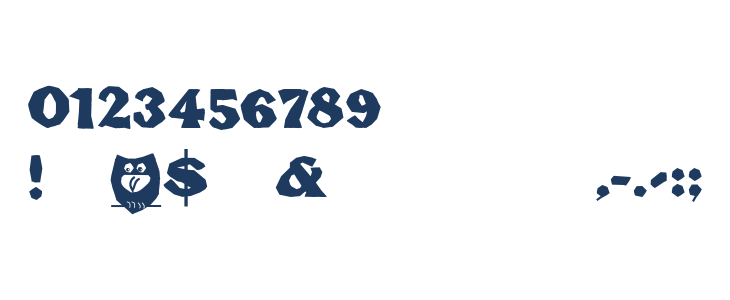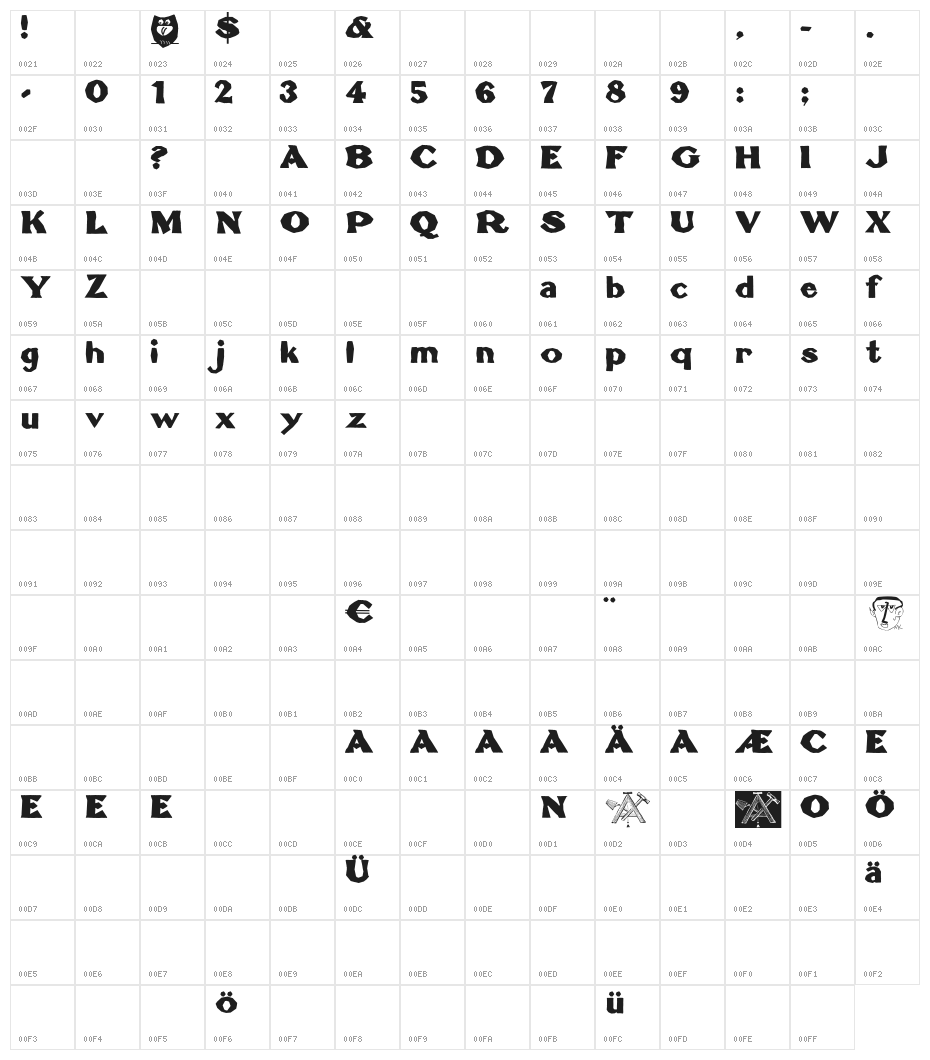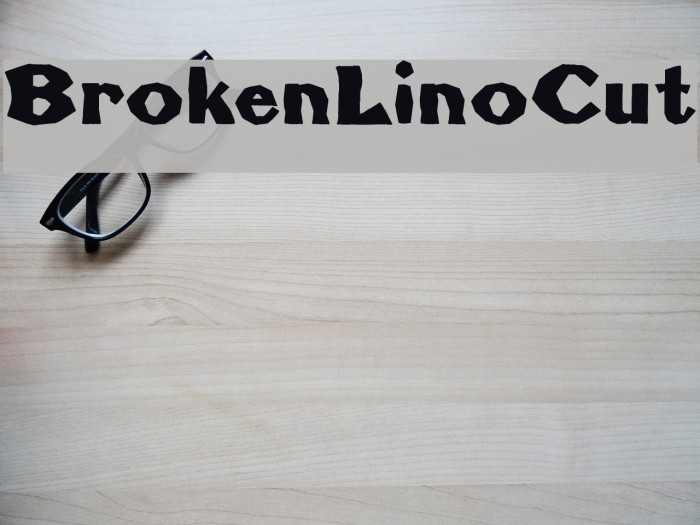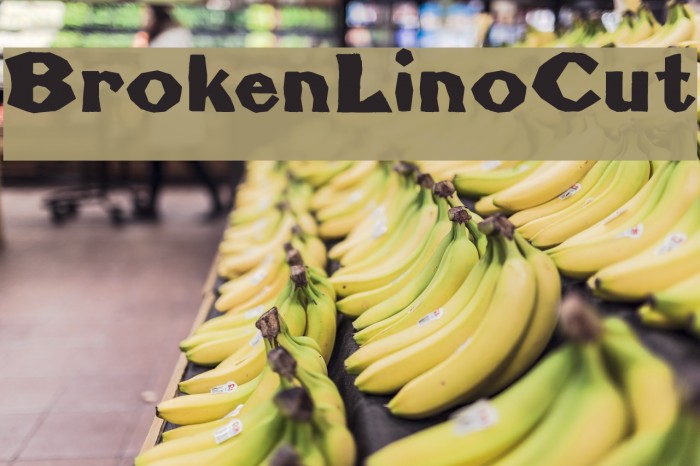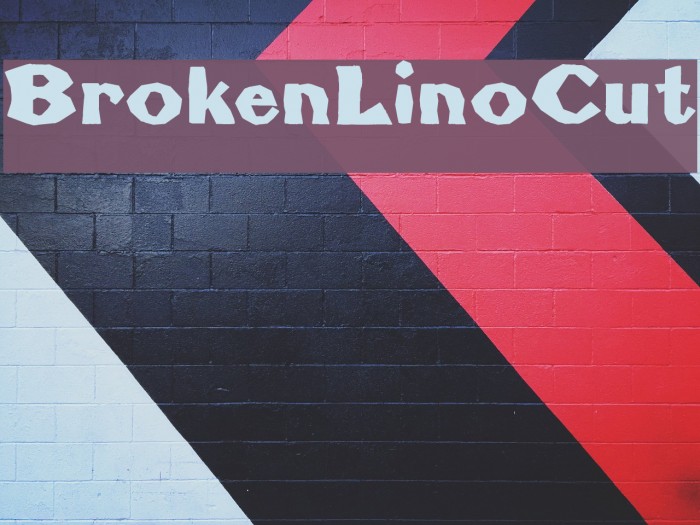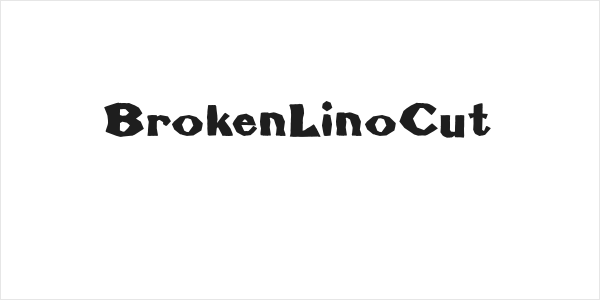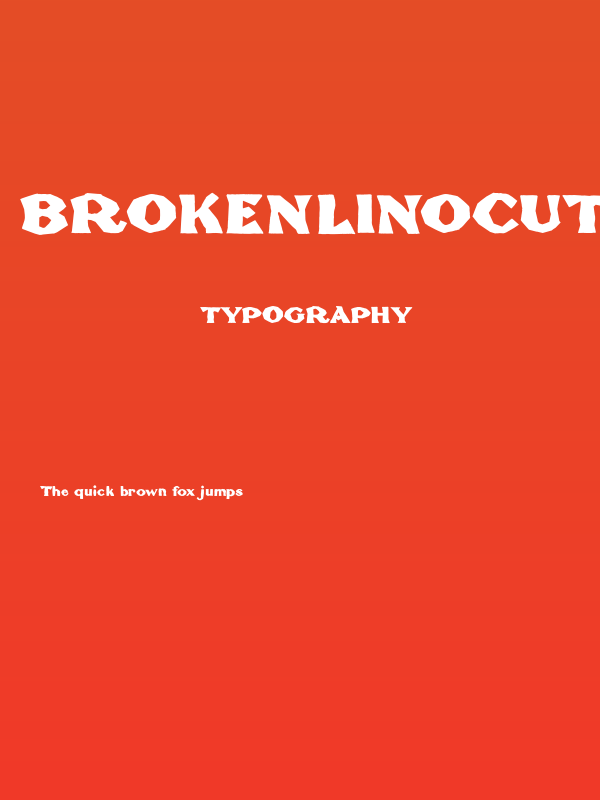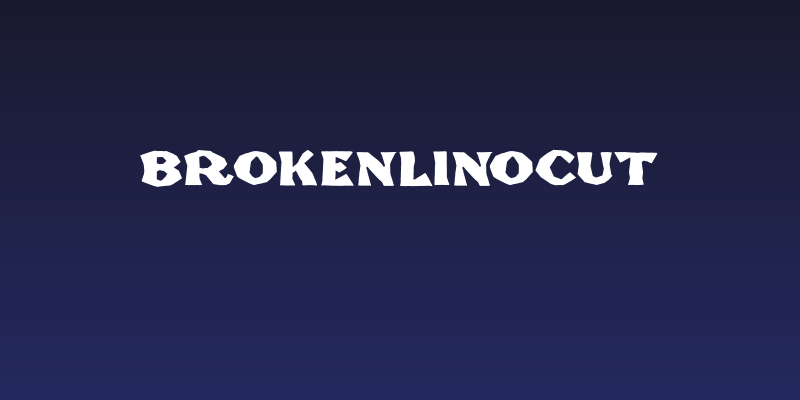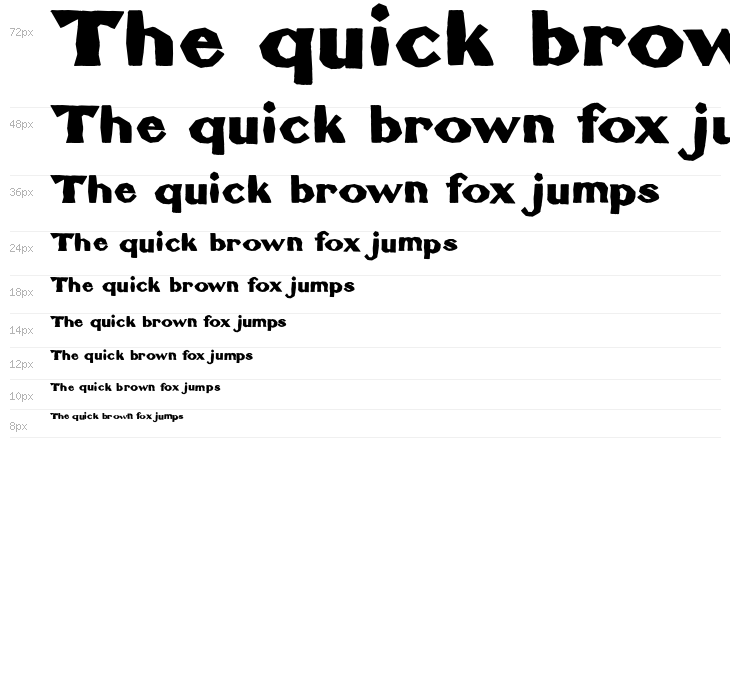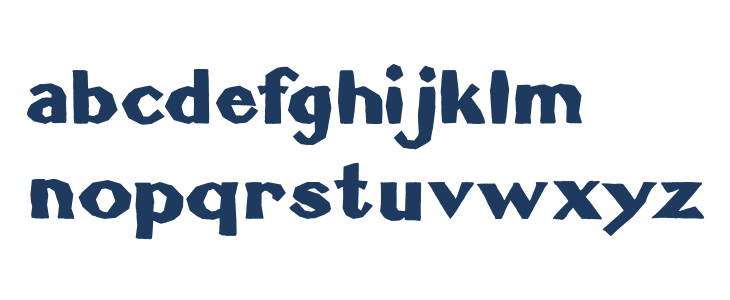
BrokenLinoCut Font
BrokenLinoCut Description
This font features a bold, hand-carved aesthetic reminiscent of traditional linocut prints. Each character exhibits a rough, textured edge, giving it an artisanal and organic feel. The uppercase and lowercase letters maintain a consistent style, with angular cuts and uneven lines that enhance its handcrafted appearance. The numbers and special characters follow the same design principles, ensuring a cohesive look across all glyphs. This font's unique style makes it stand out, offering a rustic charm that is both eye-catching and distinctive.
| Overall Style | Artisanal, Rustic |
| Use Case | Headlines, Posters, Branding |
| Proposed Projects | Ideal for art projects, posters, book covers, and branding that require a handcrafted or rustic touch. |